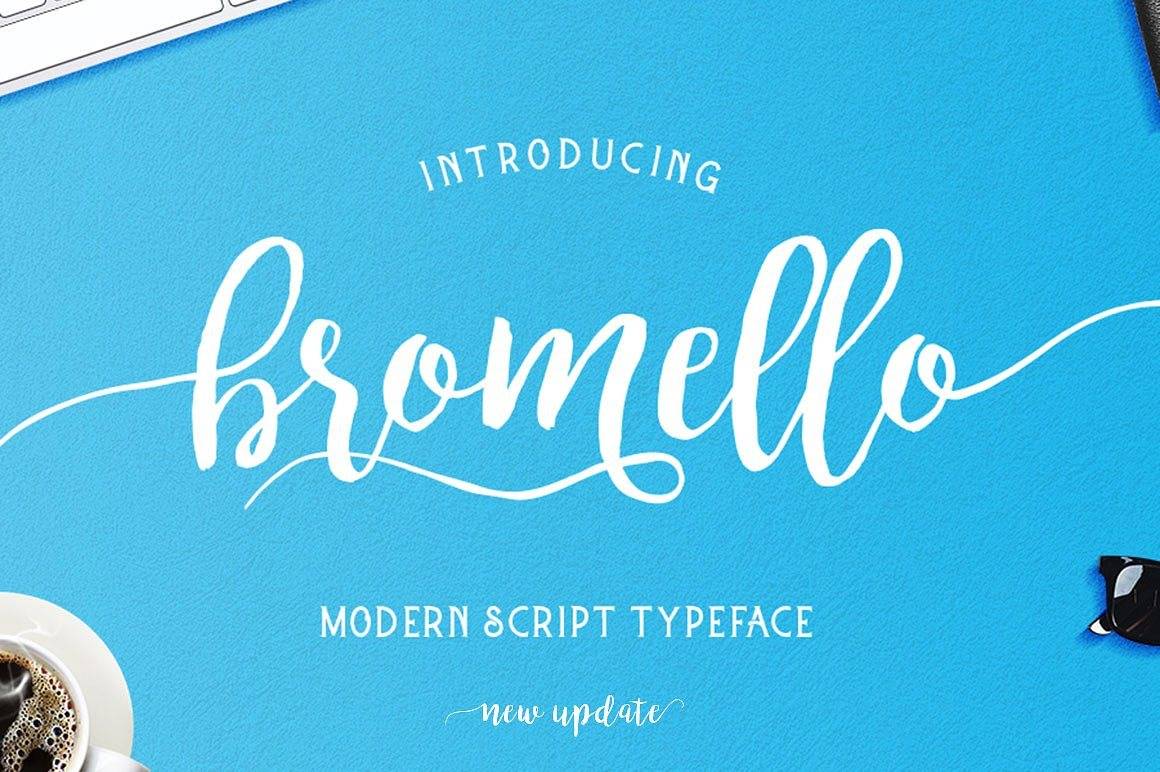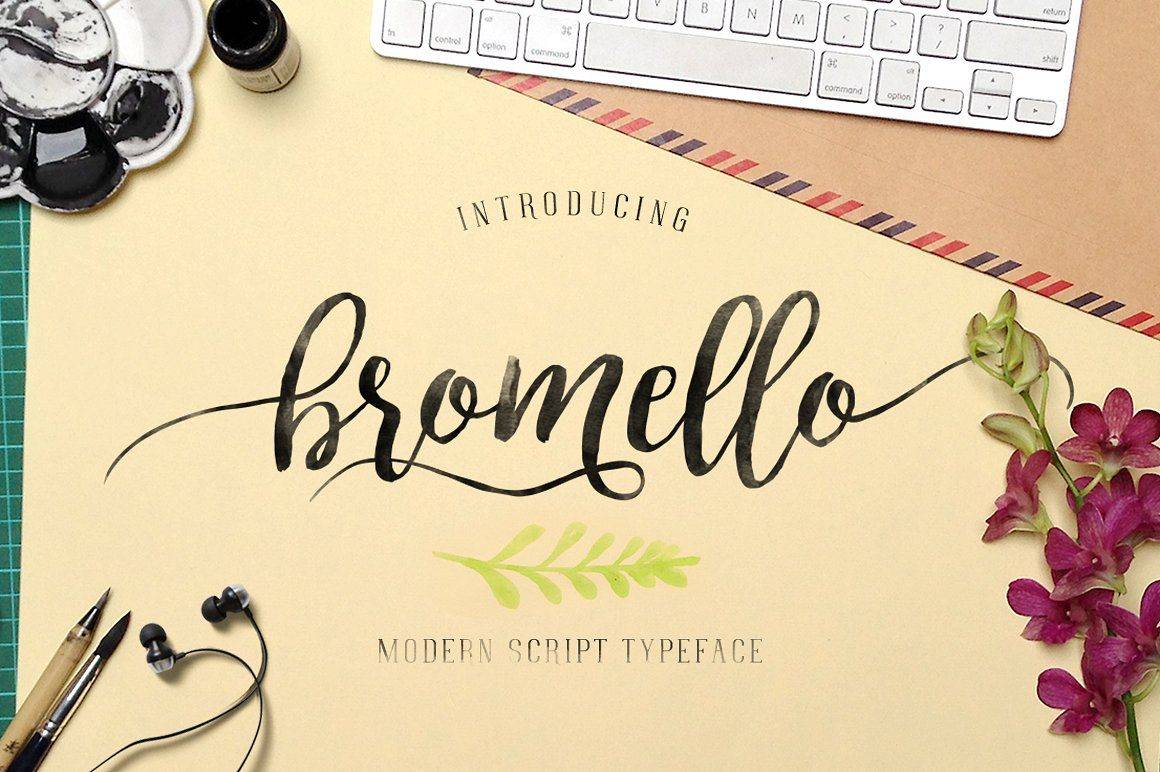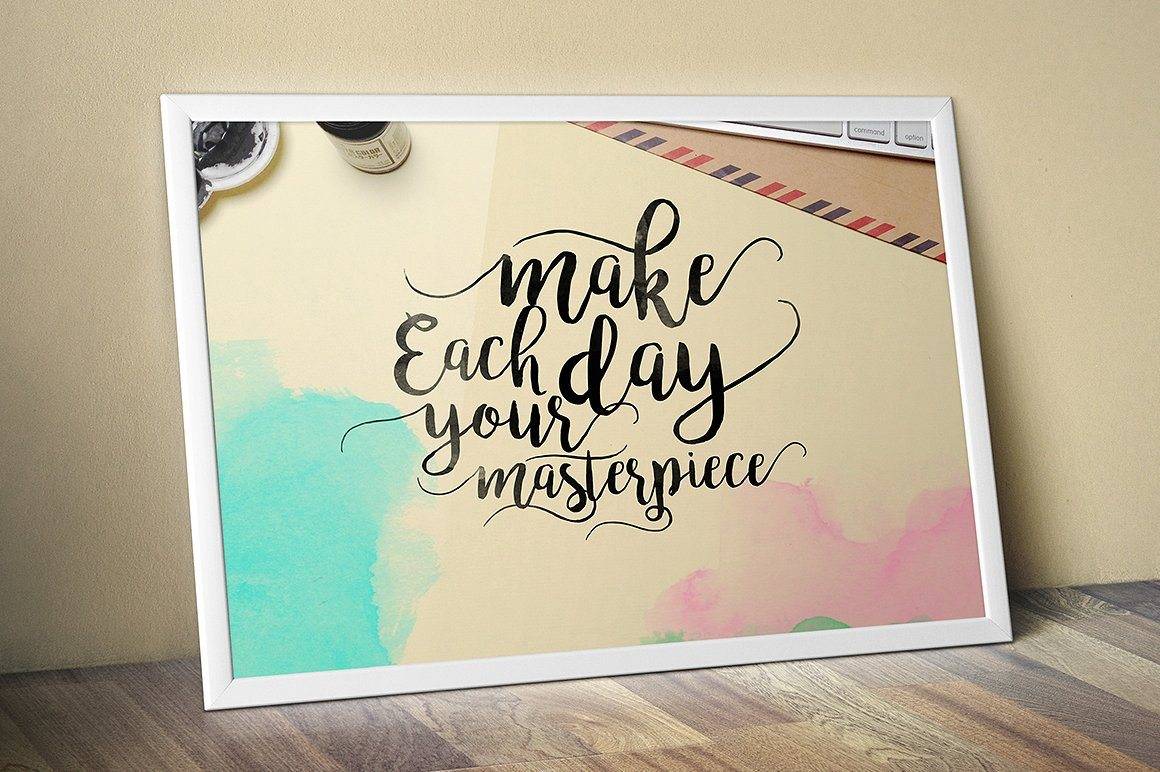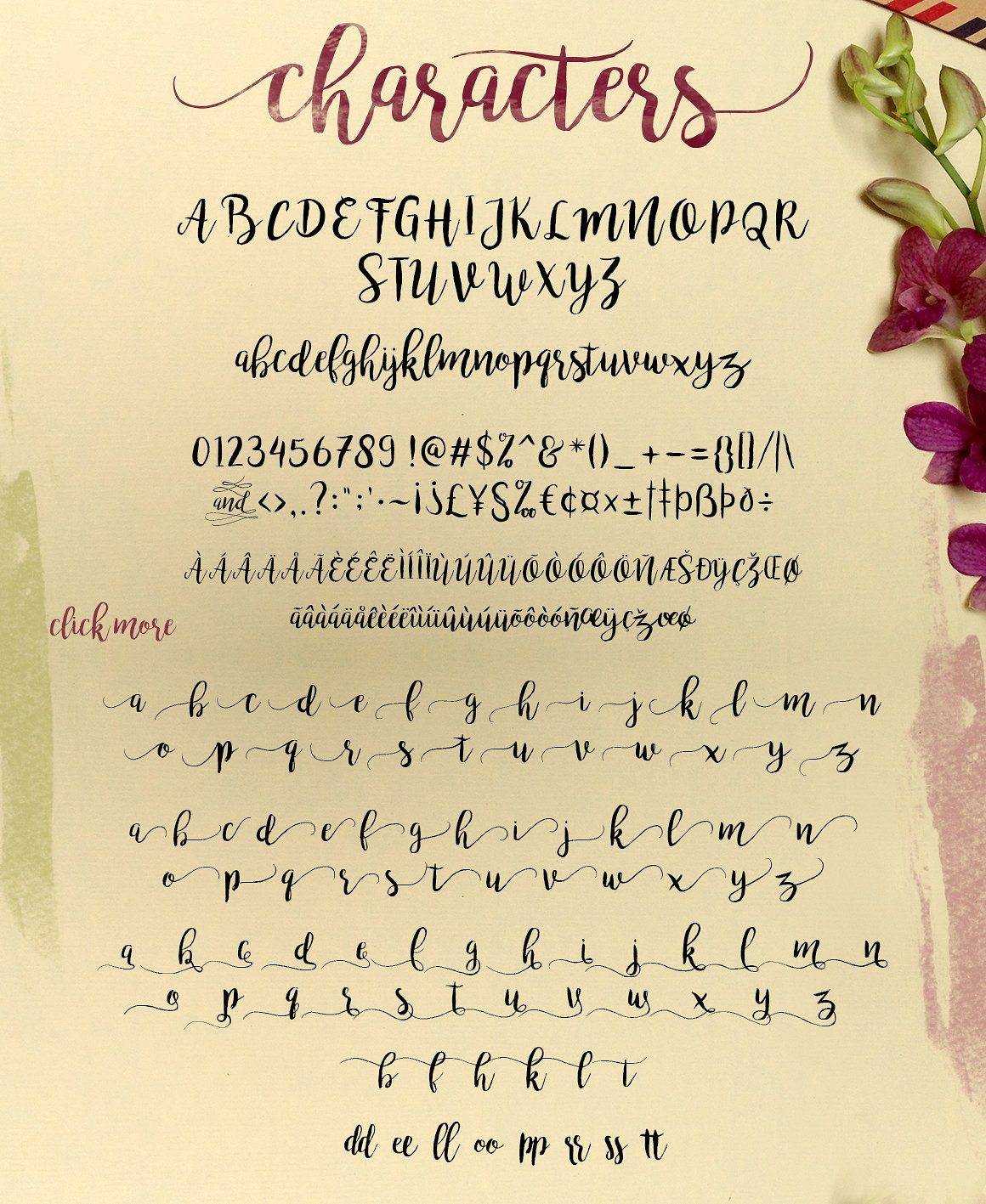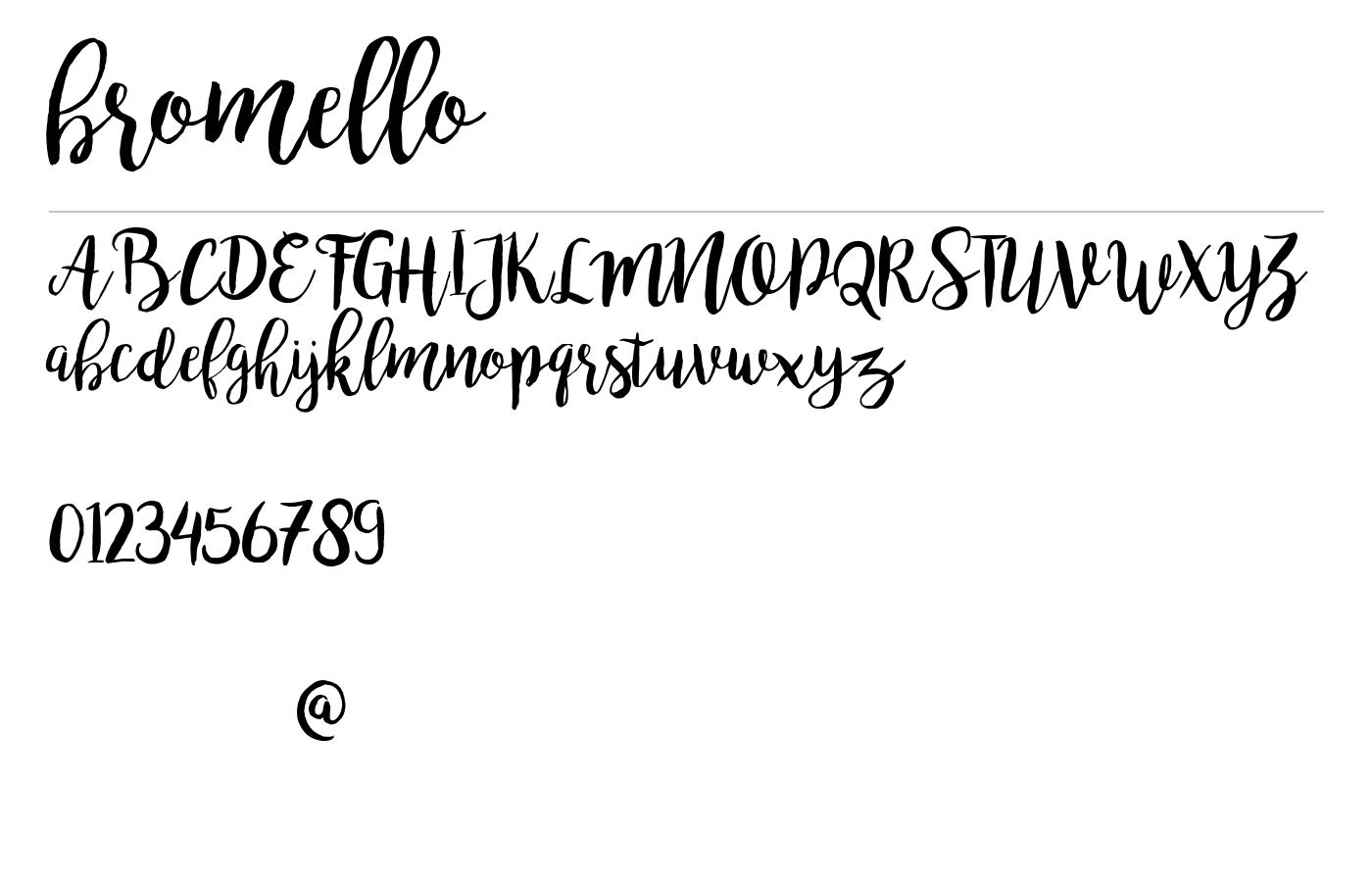
Bromello is a lively and elegant script font with a hand-lettered feel, featuring smooth, flowing strokes and moderate contrast that add a personal, stylish touch. Its casual yet refined character makes it ideal for creative branding, invitations, and headlines where a warm, approachable vibe is desired. This font shines in projects that want to evoke charm and sophistication with a handcrafted look.
Bromello Font
About Bromello Font
| Font family | Bromello Font |
| Designer | Alit Suarnegara |